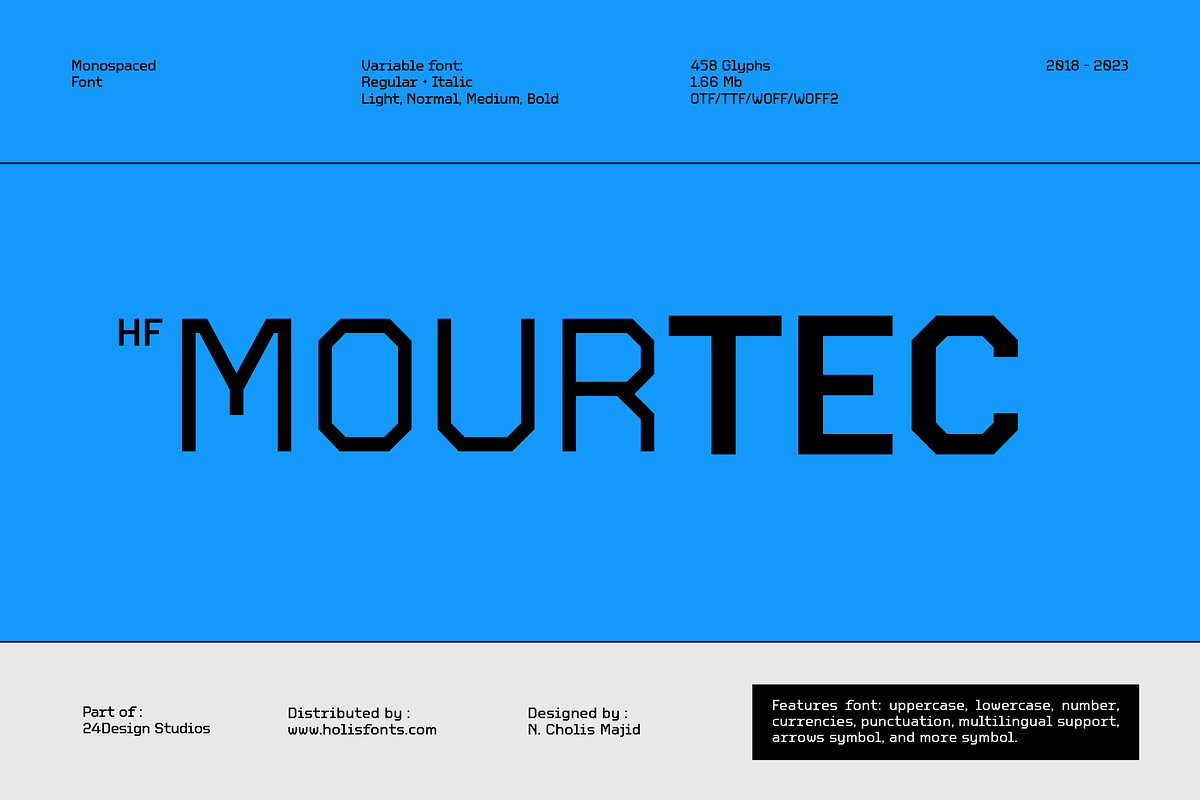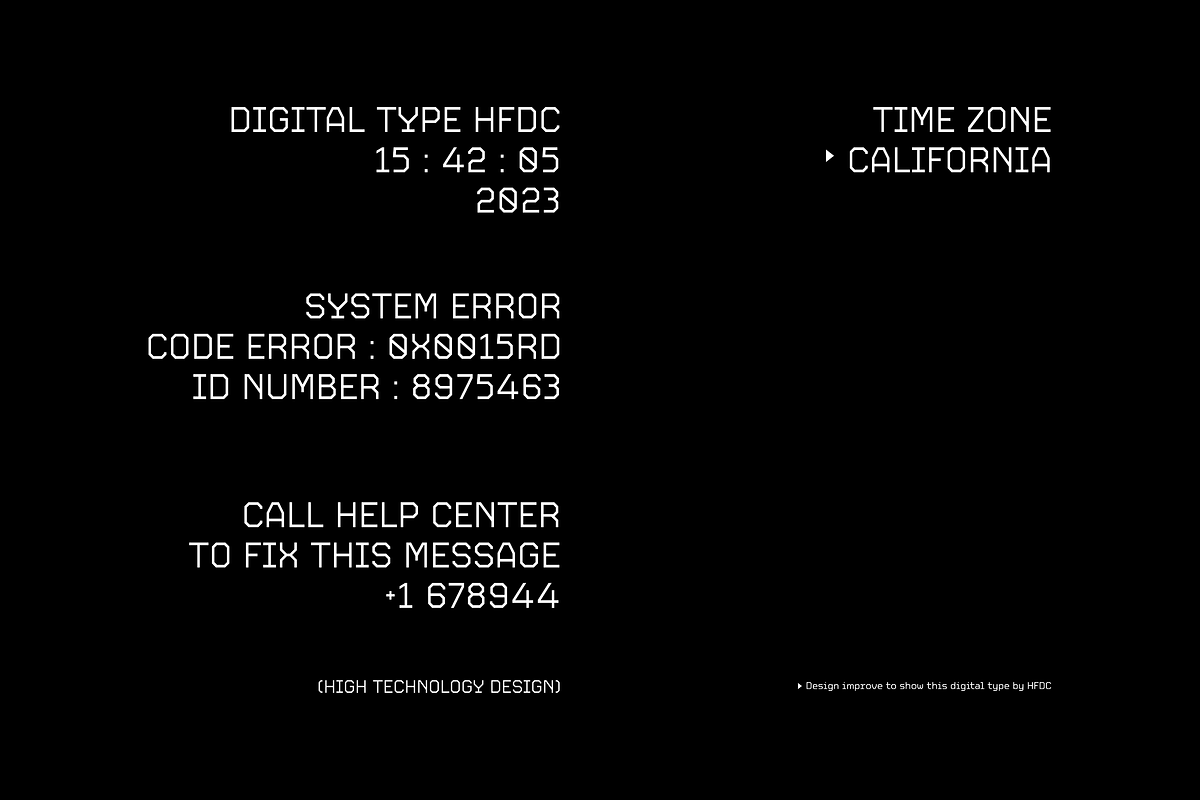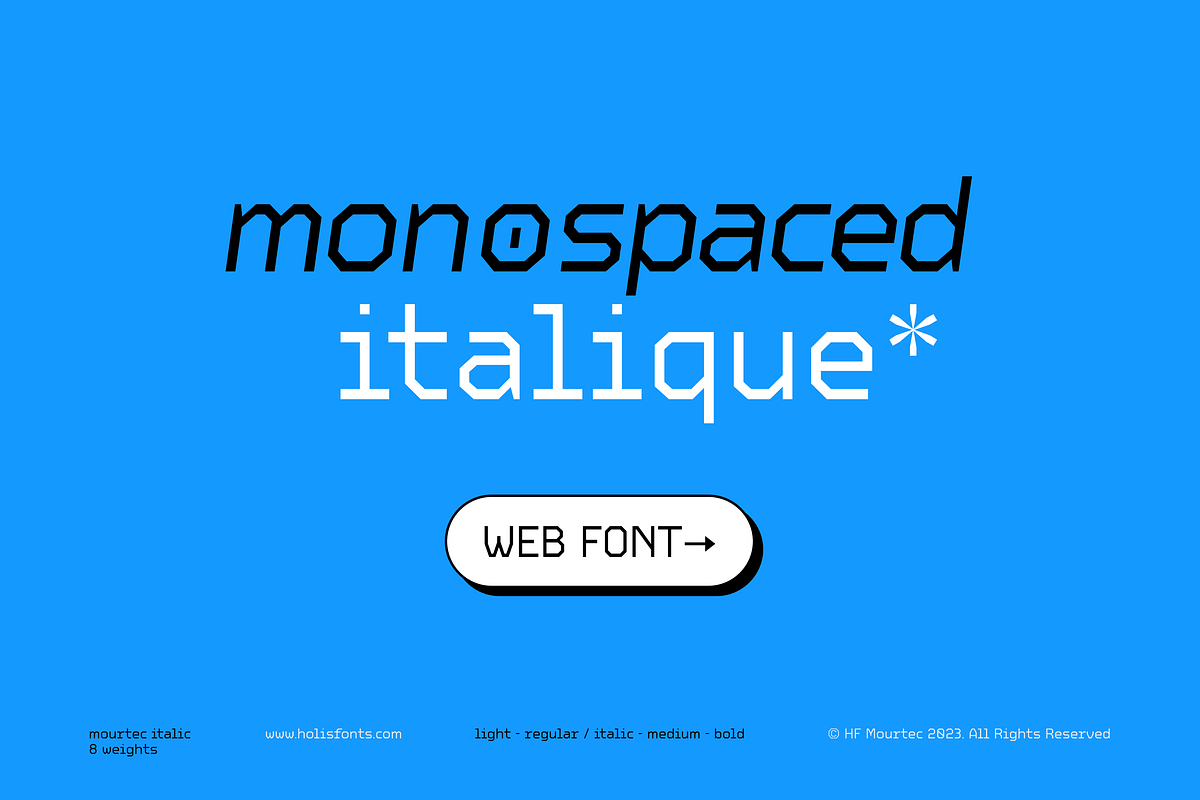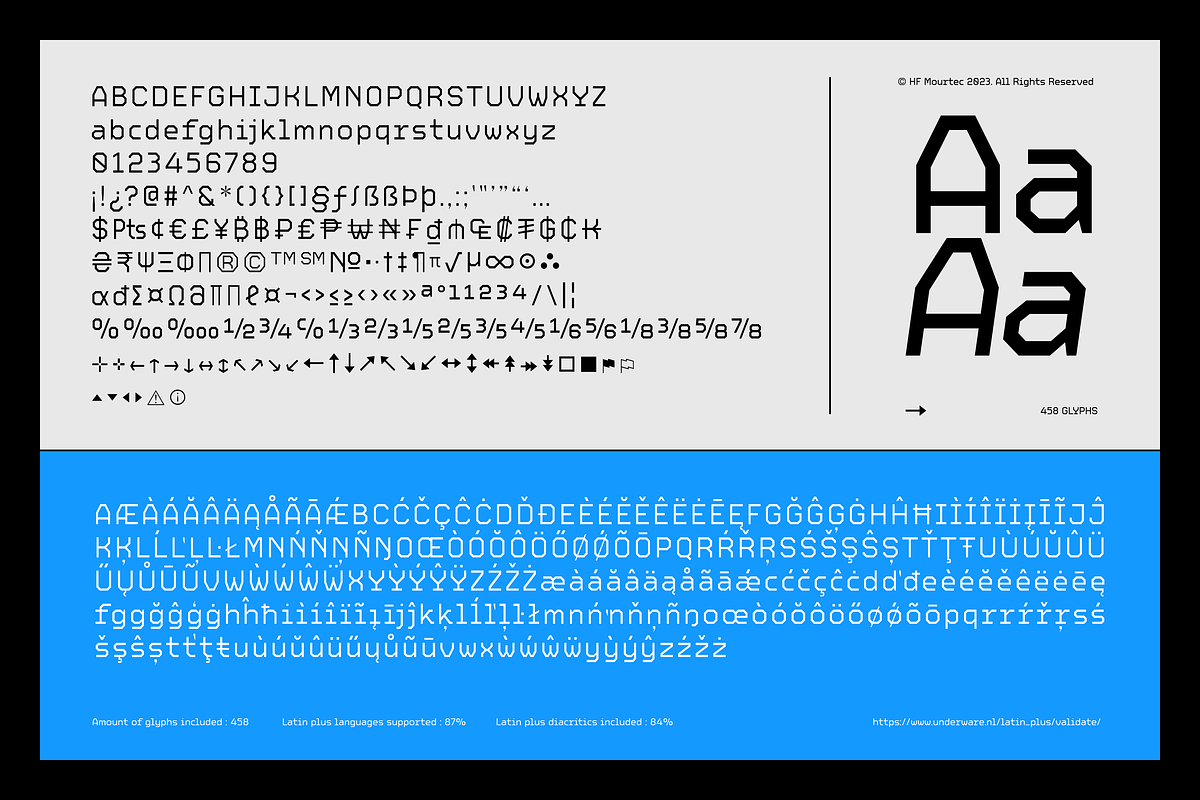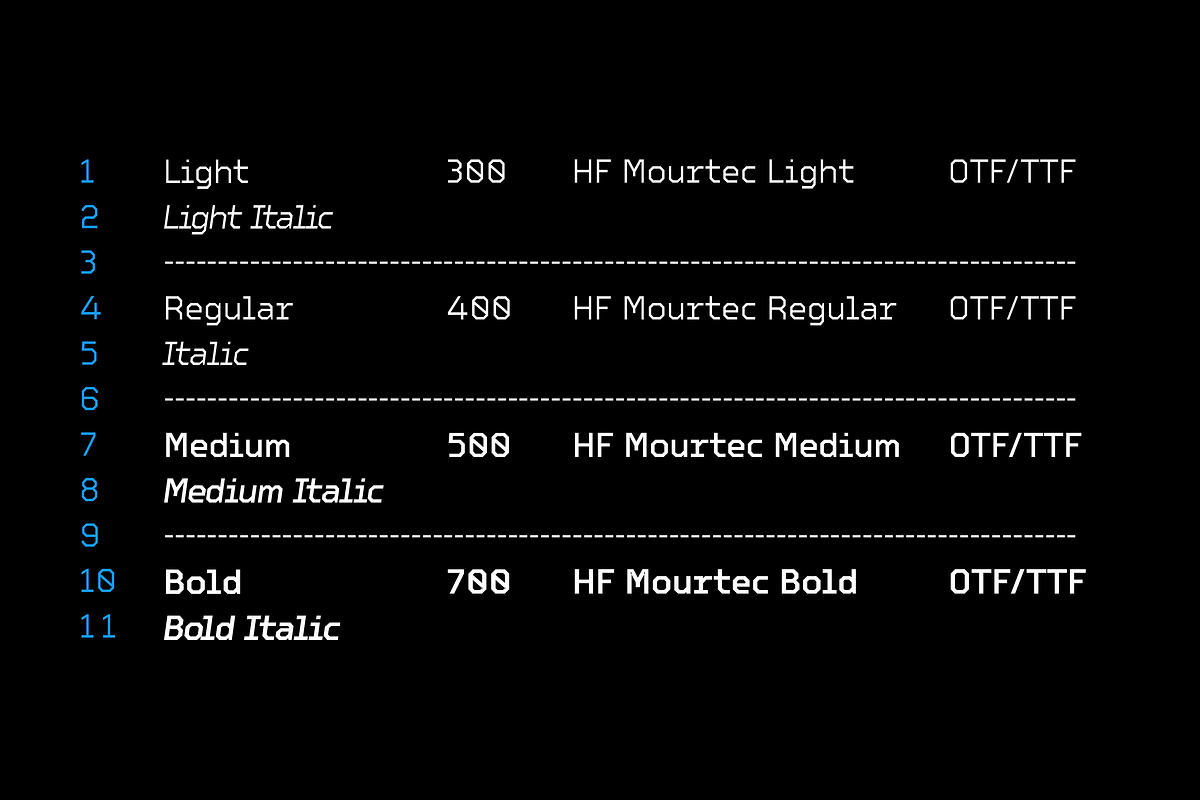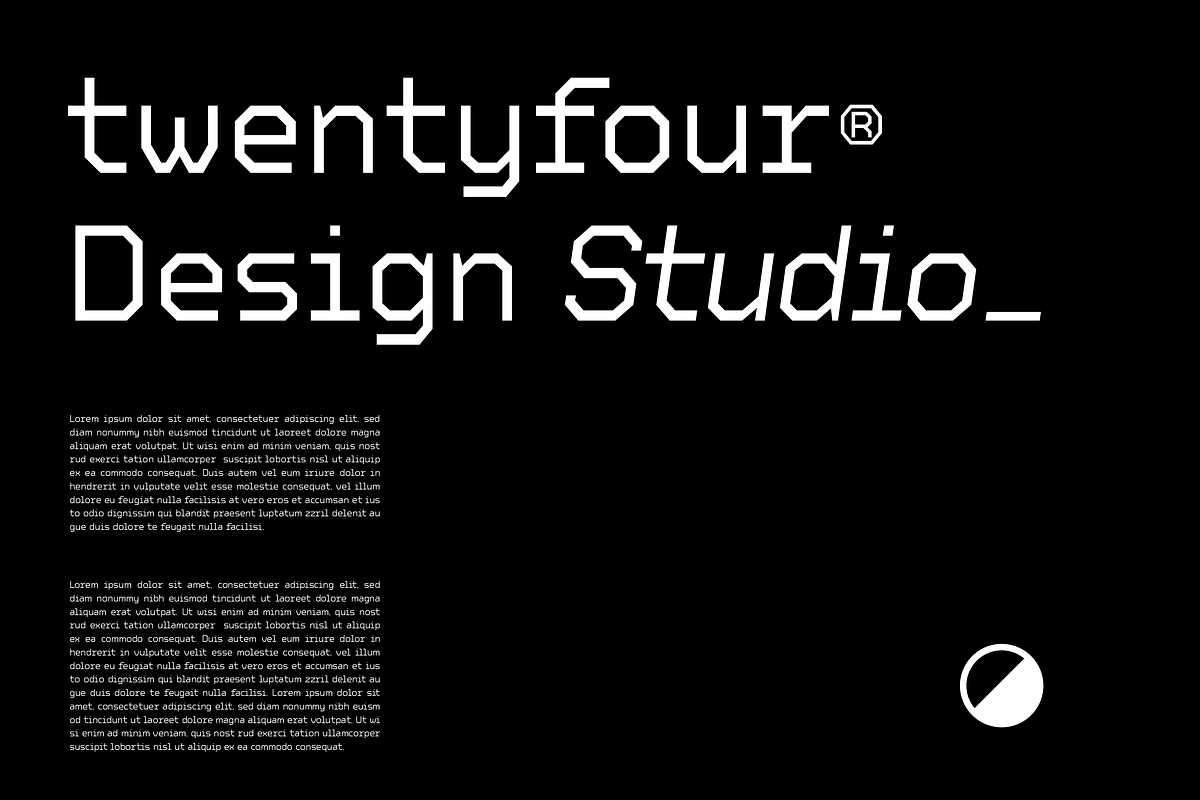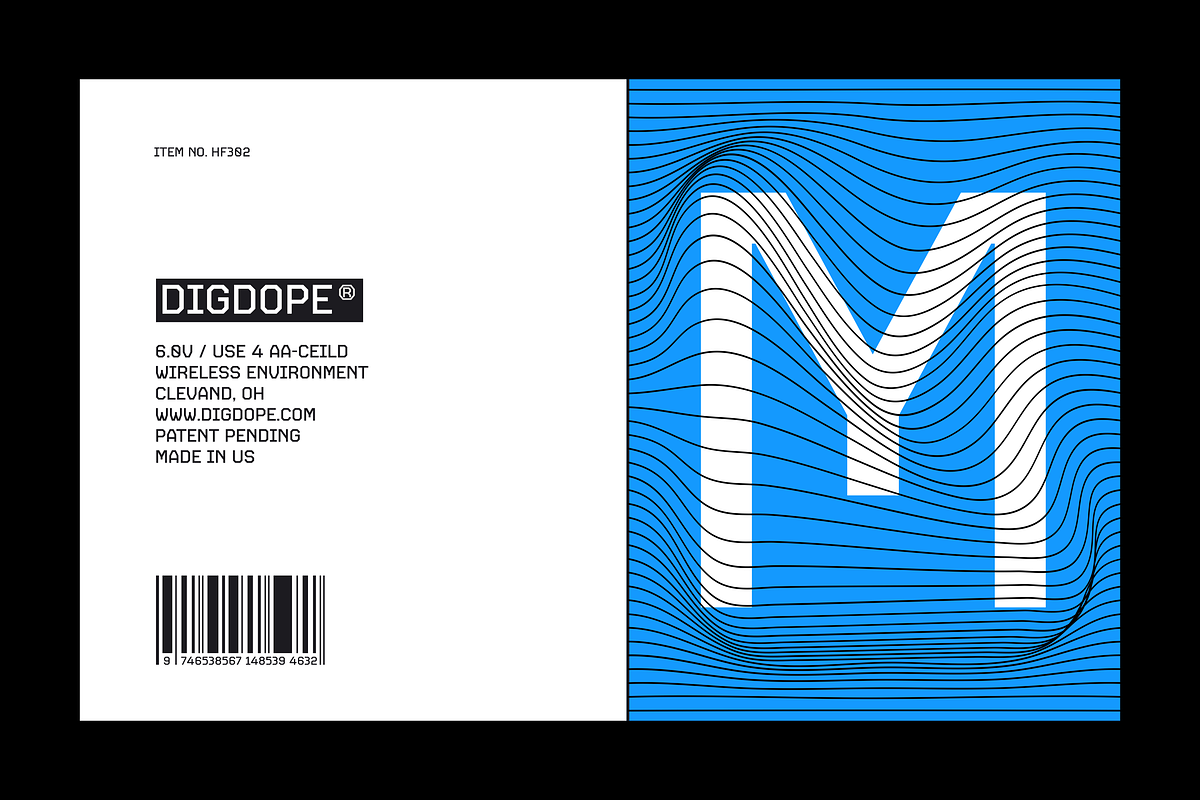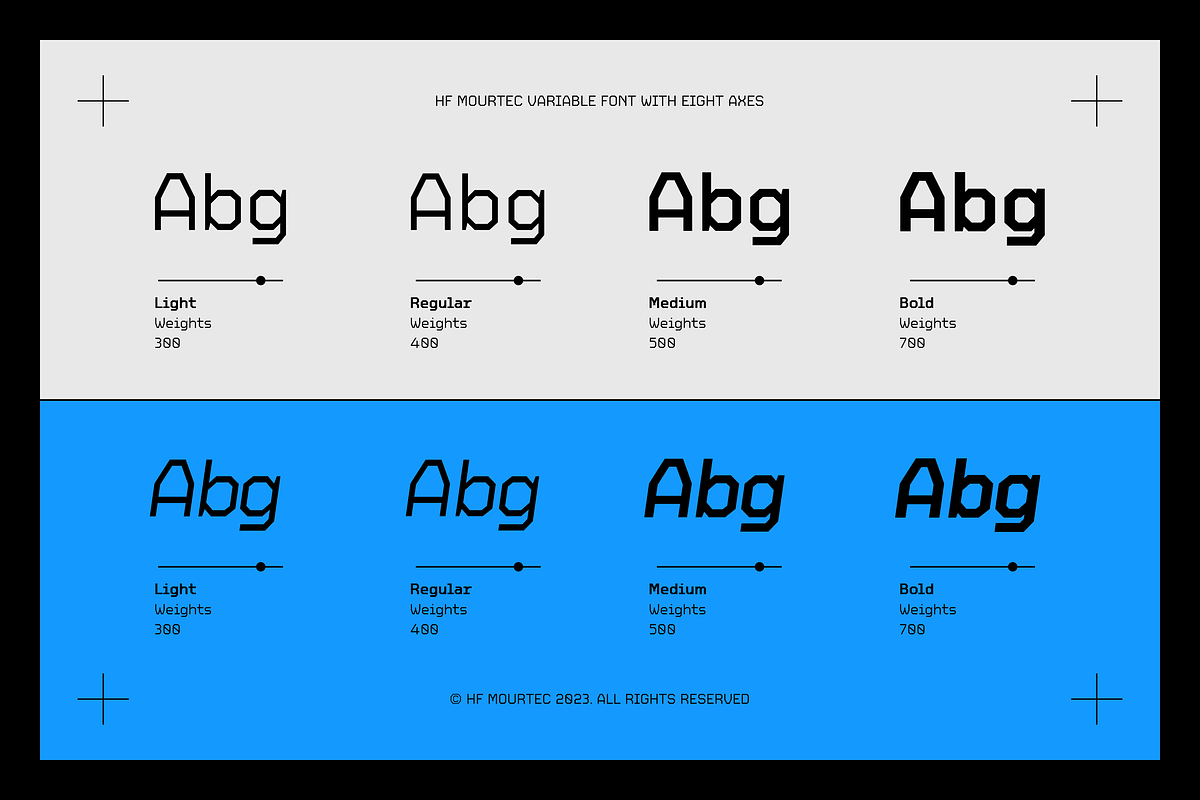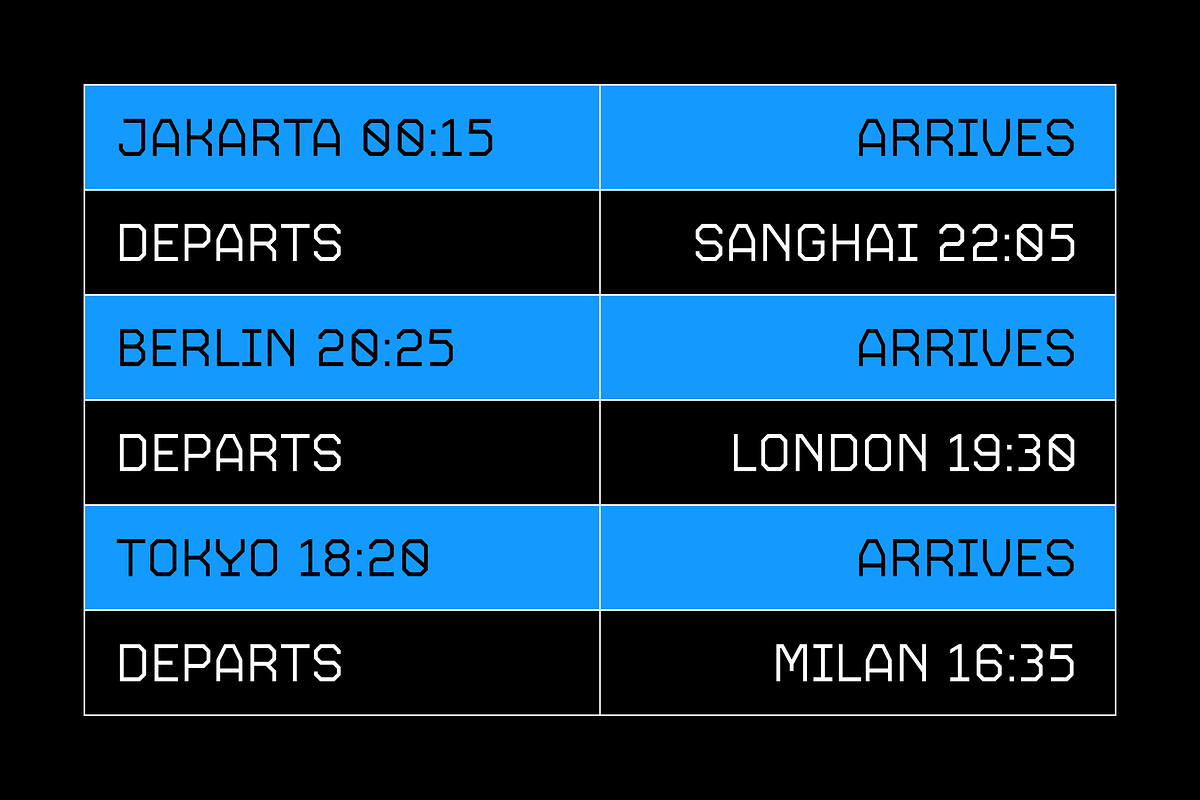
HF Mourtec Monospaced
HF Mourtec is a modern style font with sharp corners on each character, giving a sophisticated and high-tech impression, designed for things related to science, technology, the internet, and etc. The font is equipped with 458 glyphs which can support many languages around the world. Variable font 8 axes Light, Normal, Medium, Bold with two styles, normal and italic with a slope that is not excessive.
Multilingual Support ( Almost all latin language)4